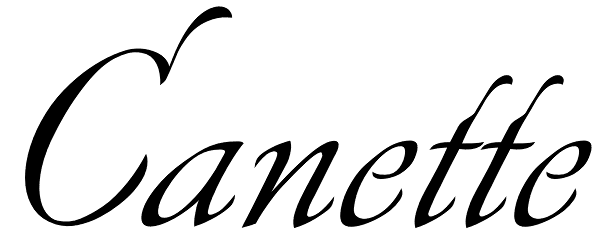
Canette
Canette is a hybrid script italic named after the noble quill (Canette=Quill in French). What makes Canette distinctive, is the bold swashes that are created by the ascenders and descenders flaring out from the main vertical stem. In addition...
Canette